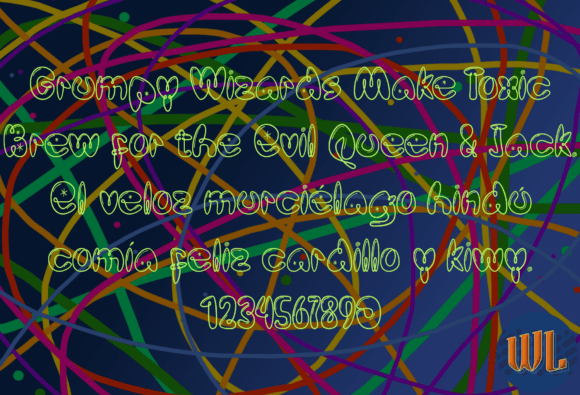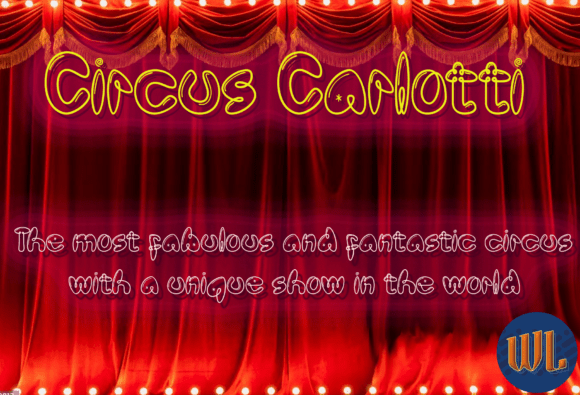
Discover the Whimsical World of Duntraz Font
Have you ever been in the middle of a design project, and suddenly, you just can’t seem to find the right font? I recall a recent experience where I was working on a children’s book cover, and my client requested a font that was both playful and elegant. After hours of searching, I stumbled upon Duntraz Font, and it was love at first sight! In this article, we’ll dive into the delightful world of Duntraz, exploring its unique features, and how to make the most of this charming decorative font.
A Personal Review of Duntraz Font
So, what makes Duntraz so special? Let’s take a closer look.
What I Love About Duntraz ✨
- ✅ Unique single-line design that exudes a childlike wonder
- ✅ Aesthetically pleasing and whimsical appeal, perfect for child-themed designs
- ✅ Experimental nature ensures every word feels like an original illustration
- ✅ Glowing, tangled letterforms designed for maximum visual impact
While Duntraz is an amazing font, there are a few things to keep in mind:
- 🤔 May not be suitable for body text due to its decorative nature
- 🤔 Limited legibility at small font sizes
The Story Behind Duntraz Font
Duntraz Font was meticulously crafted by Alberto Villanueva in 2026. With a passion for creating unique and whimsical designs, Villanueva aimed to bring a touch of childlike wonder to the world of typography. Inspired by the experimental nature of modern art, Duntraz was born – a font that embodies the perfect balance of playfulness and elegance.
| Font Name | Duntraz Font |
| Author | Wakoletras |
| What is Duntraz Font best used for? | Duntraz Font is ideal for child-themed designs, YouTube banners, electronic music album covers, and experimental fashion labels. |
| Is Duntraz Font available in different styles? | Currently, Duntraz Font is available in a single style. However, the experimental nature of the font allows for creative exploration and adaptation. |
| Can I use Duntraz Font for body text? | While possible, Duntraz Font is not recommended for body text due to its decorative nature and limited legibility at small font sizes. |
Conclusion
Duntraz Font is a delightful decorative font that can add a touch of childlike wonder to any creative project. With its unique single-line design and experimental nature, Duntraz is perfect for designers, crafters, and creative hobbyists looking to bring a playful and whimsical element to their work. By following this guide, you’ll be able to unlock the full potential of Duntraz and take your designs to the next level.